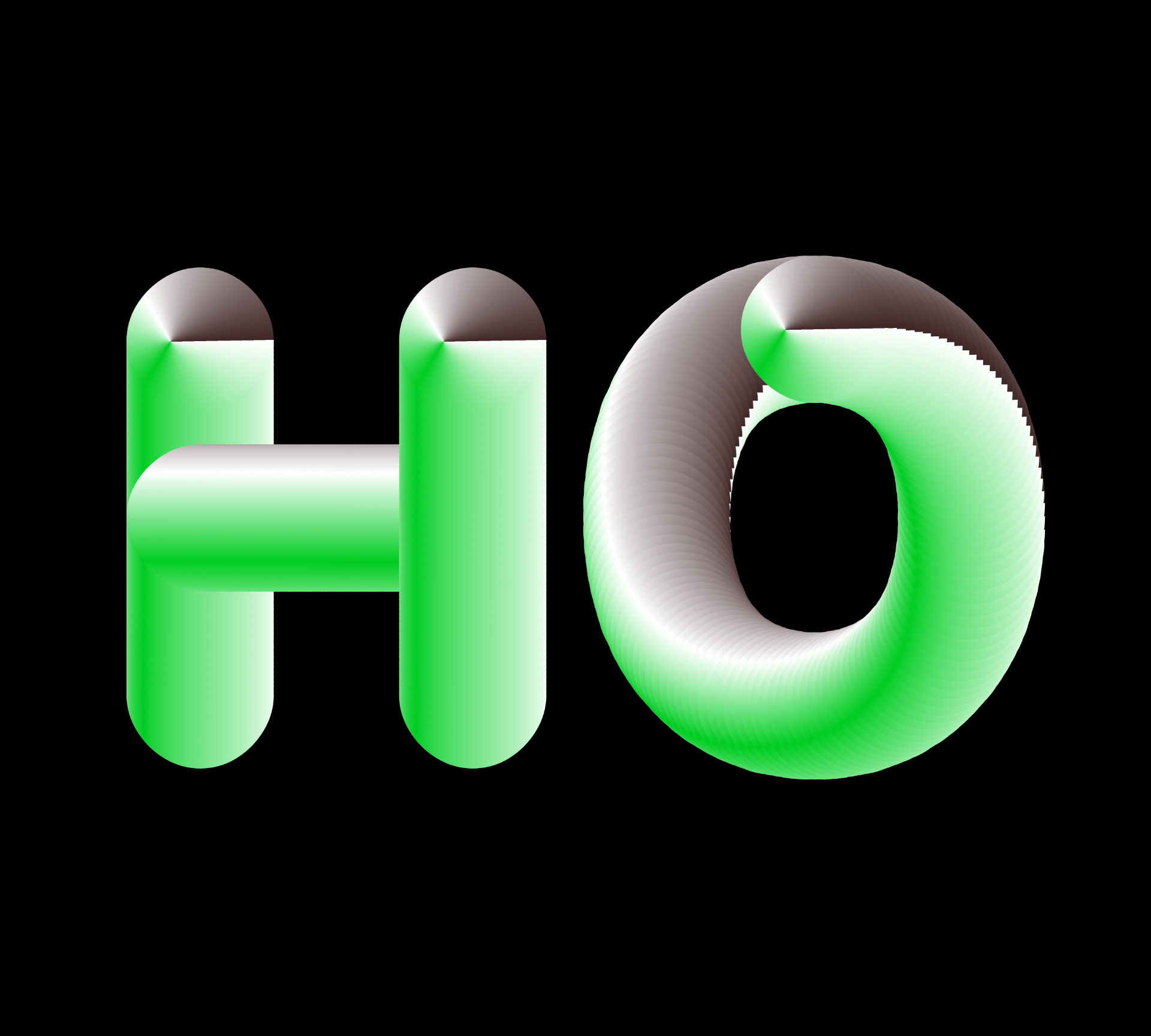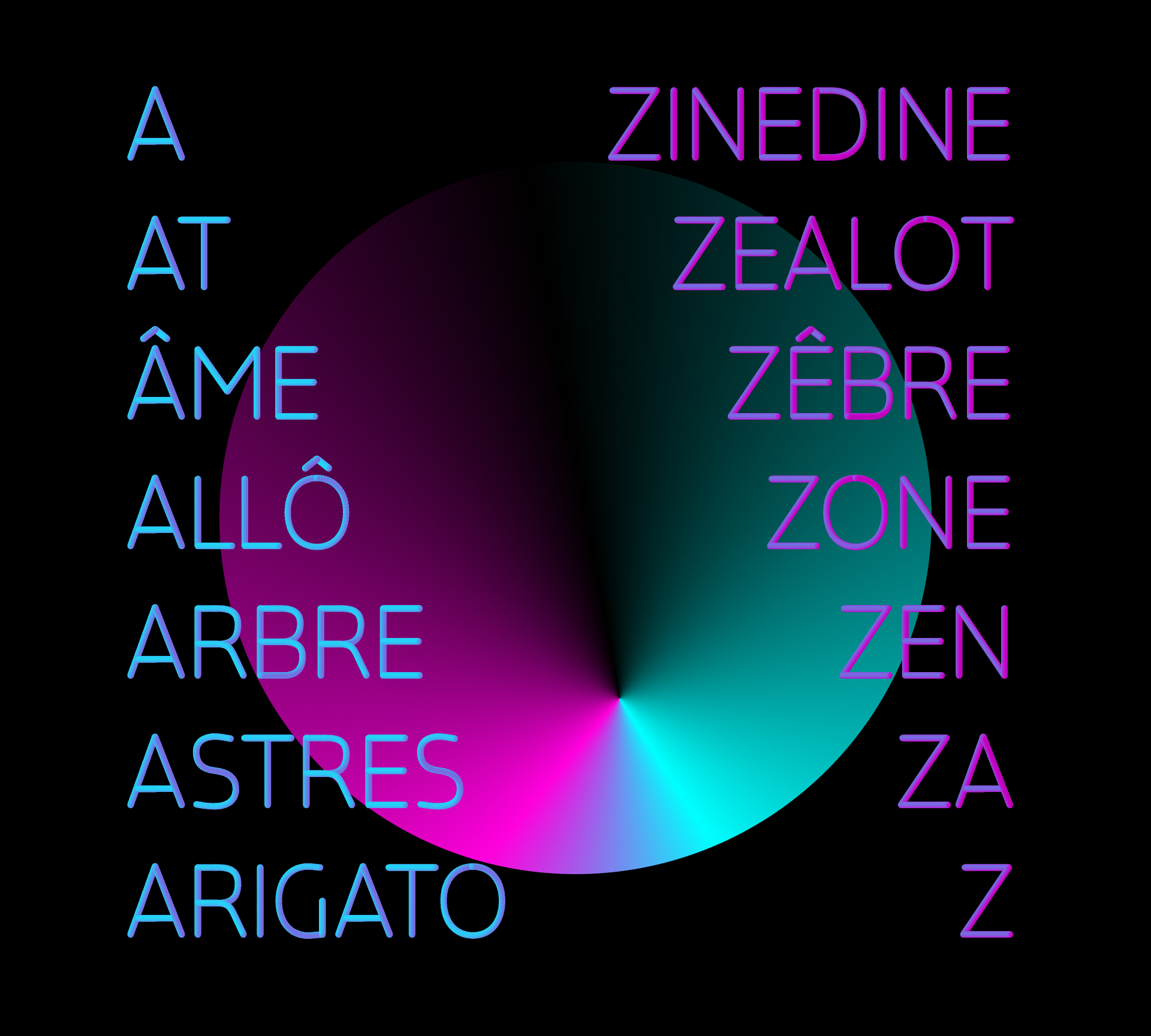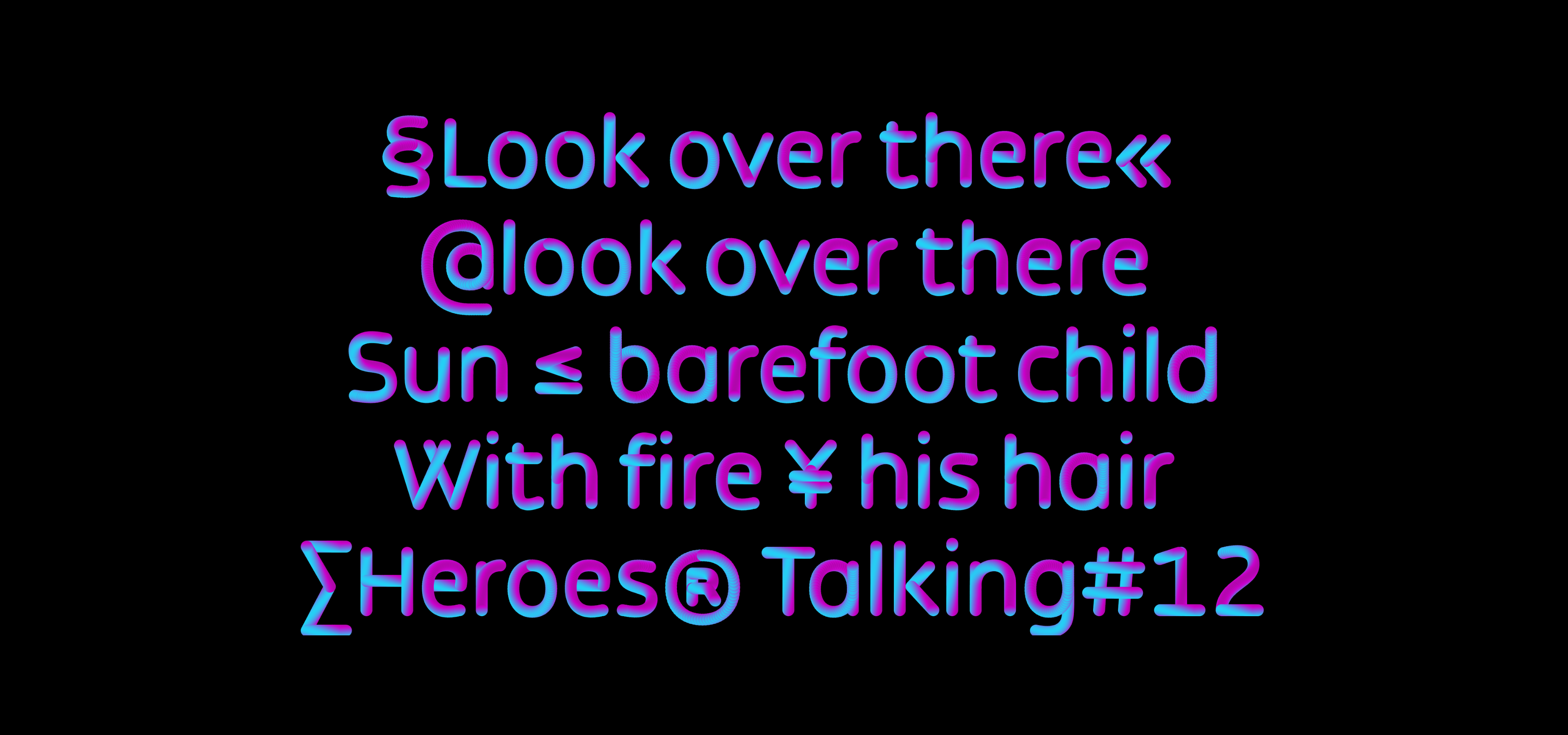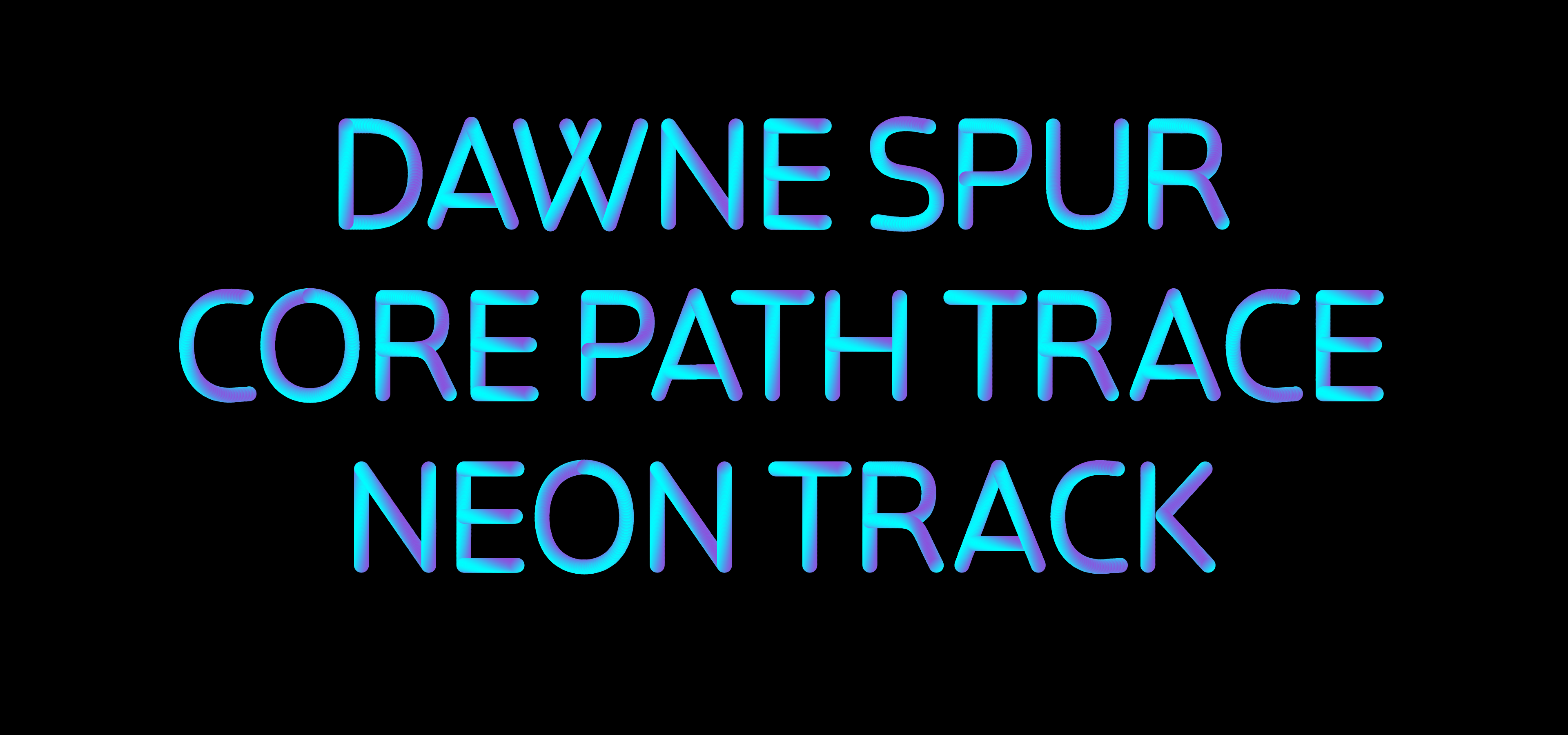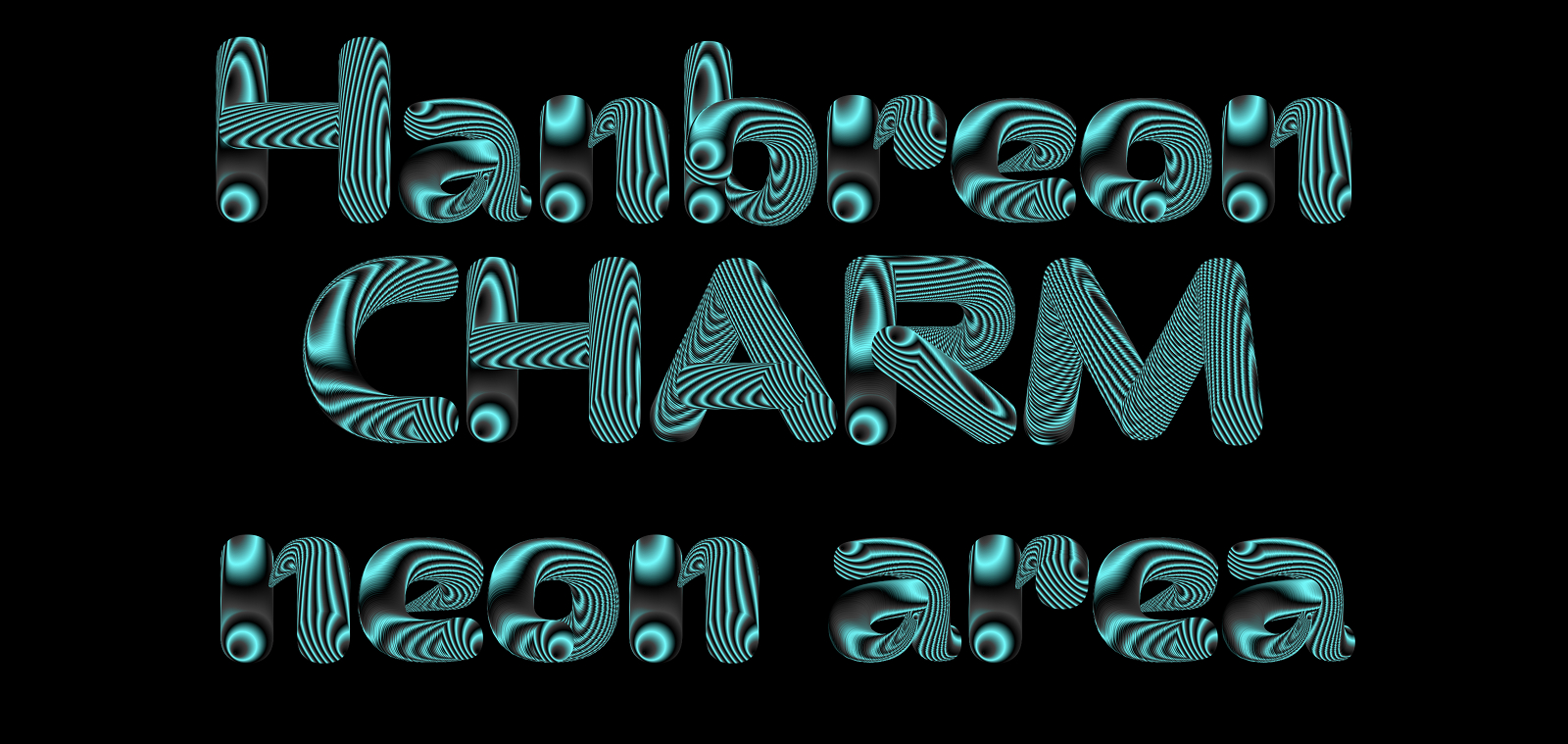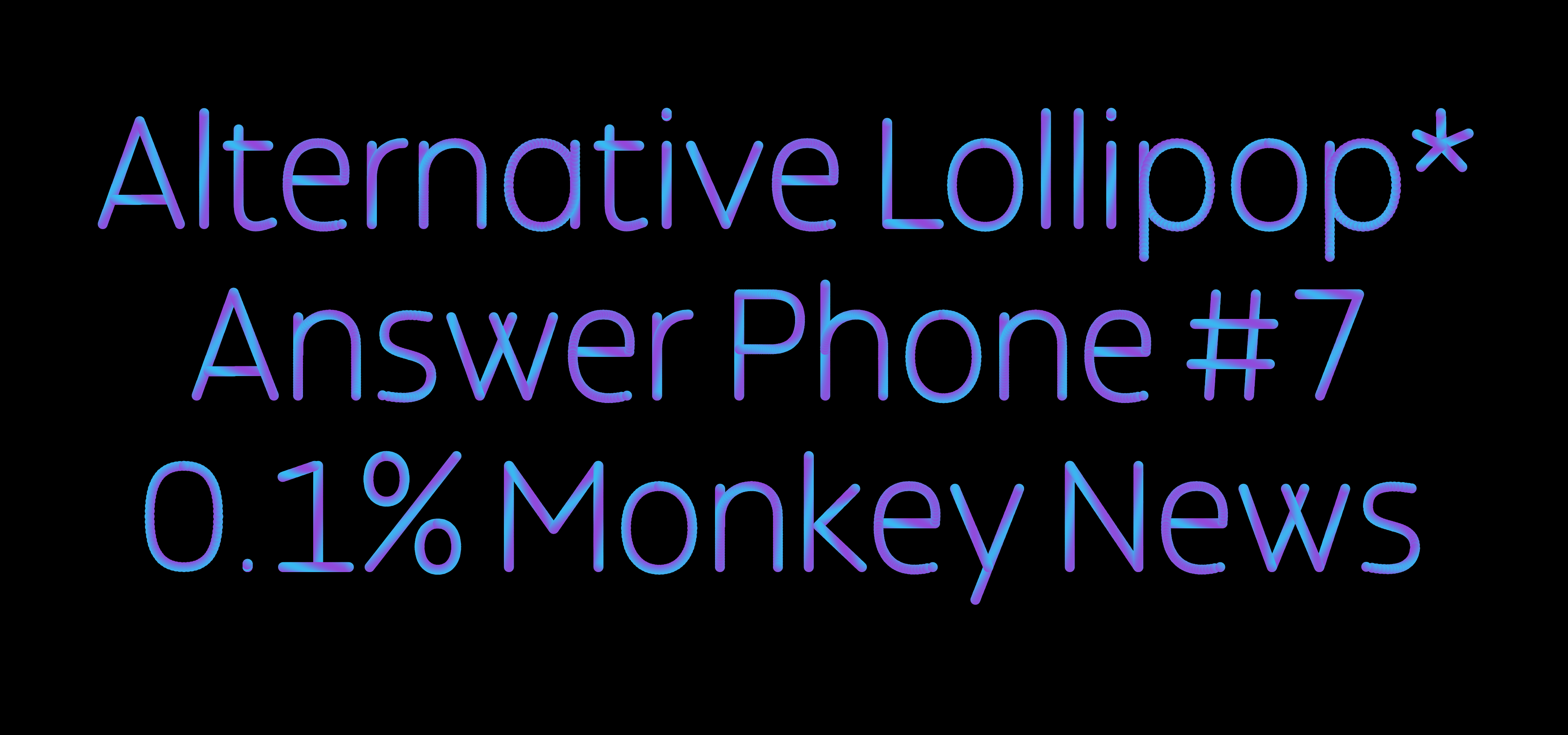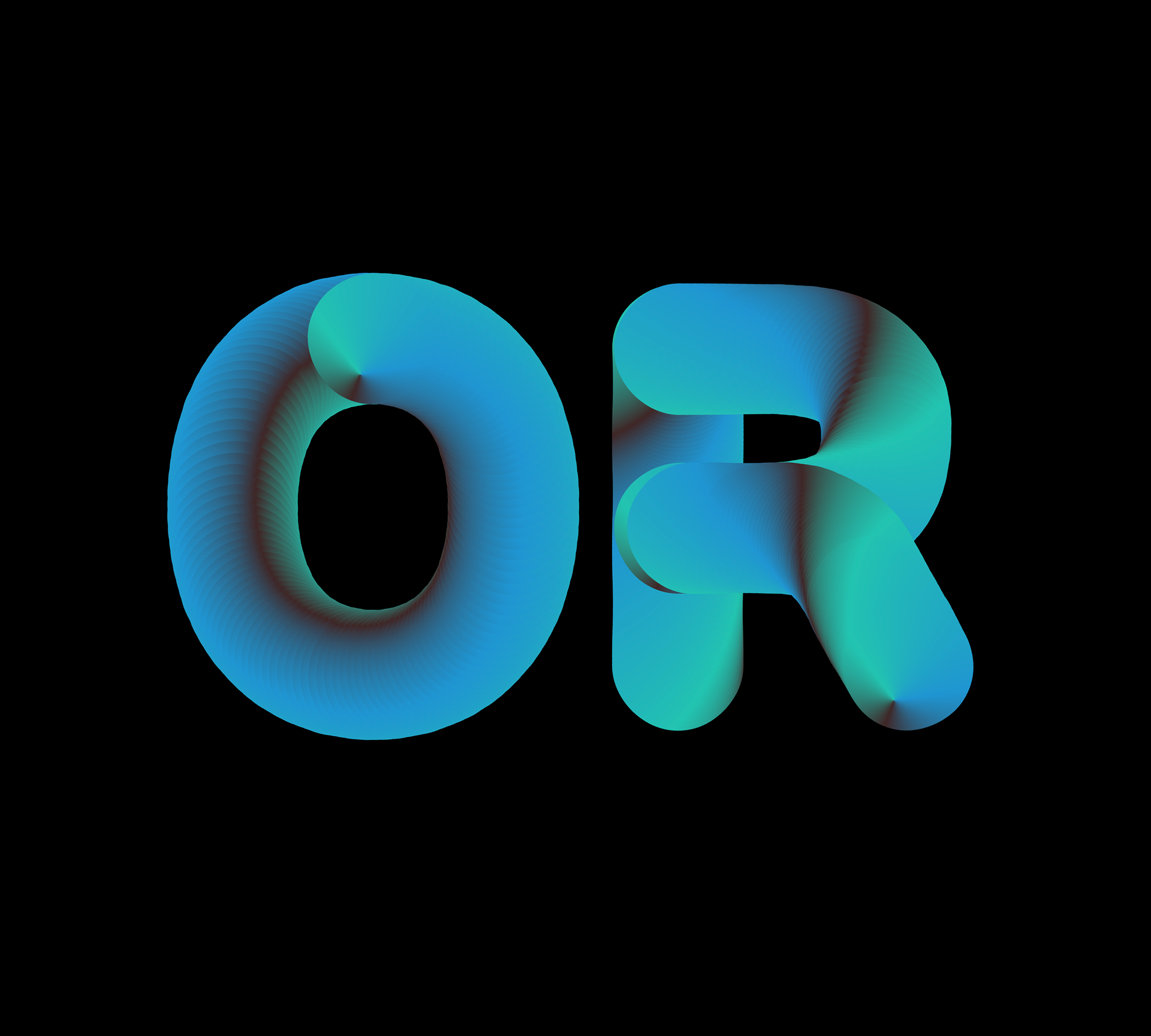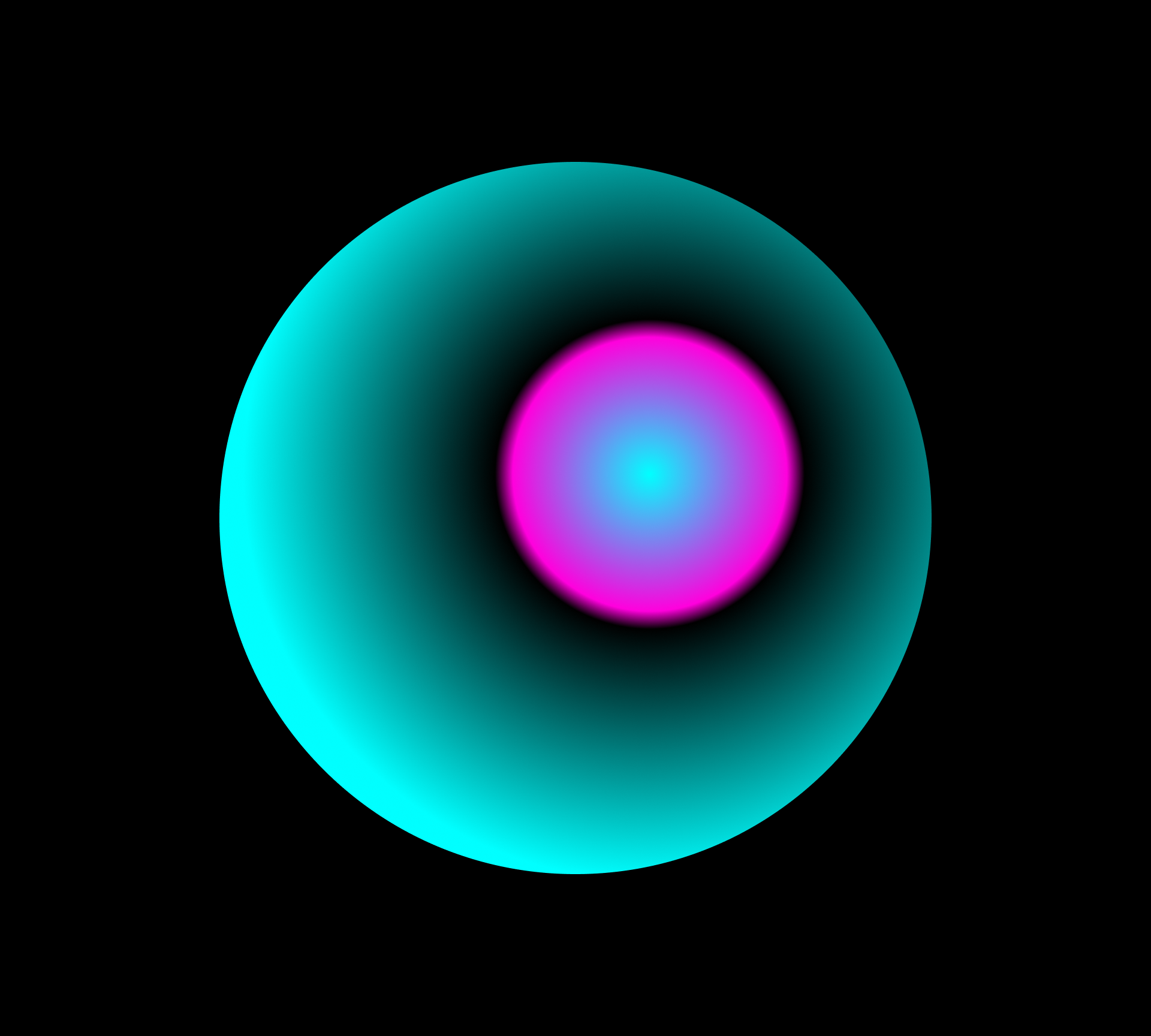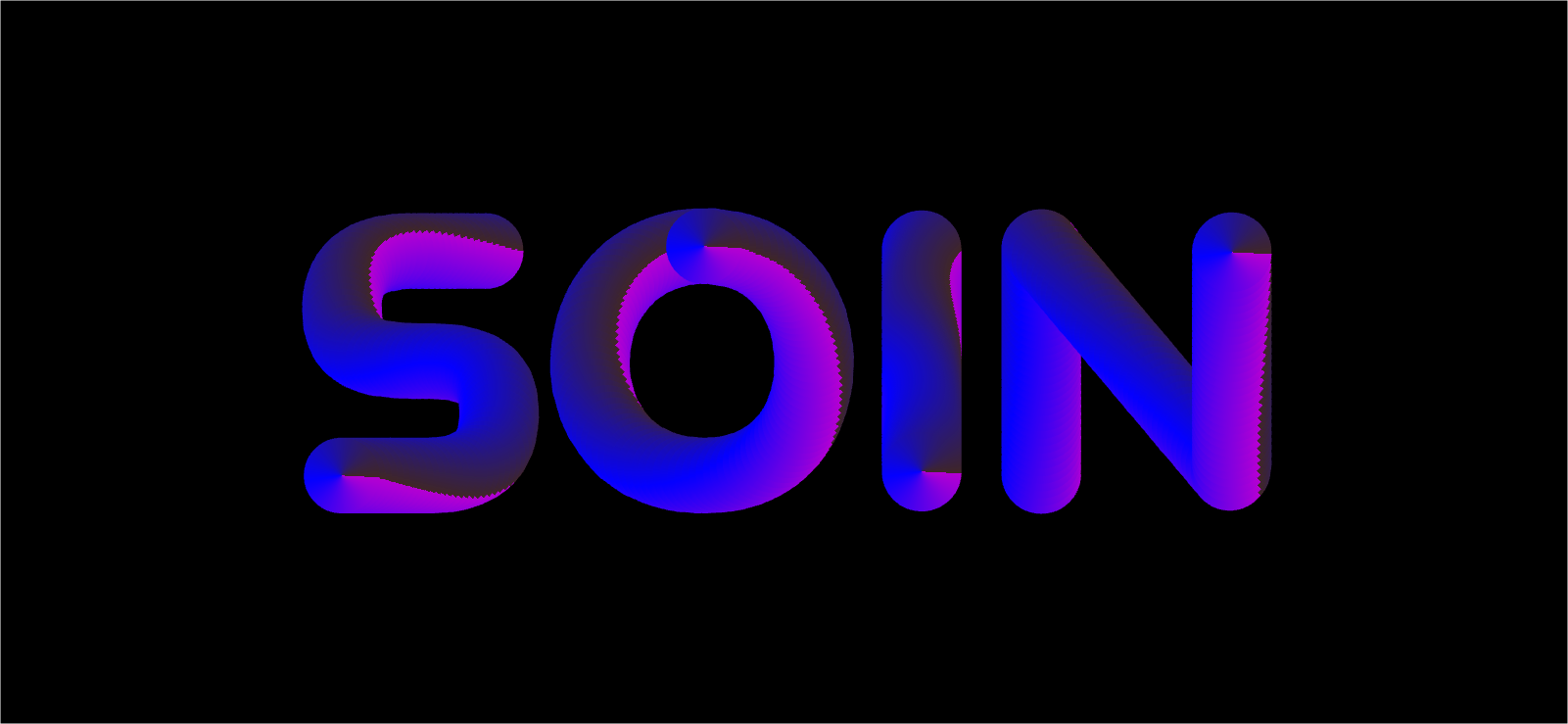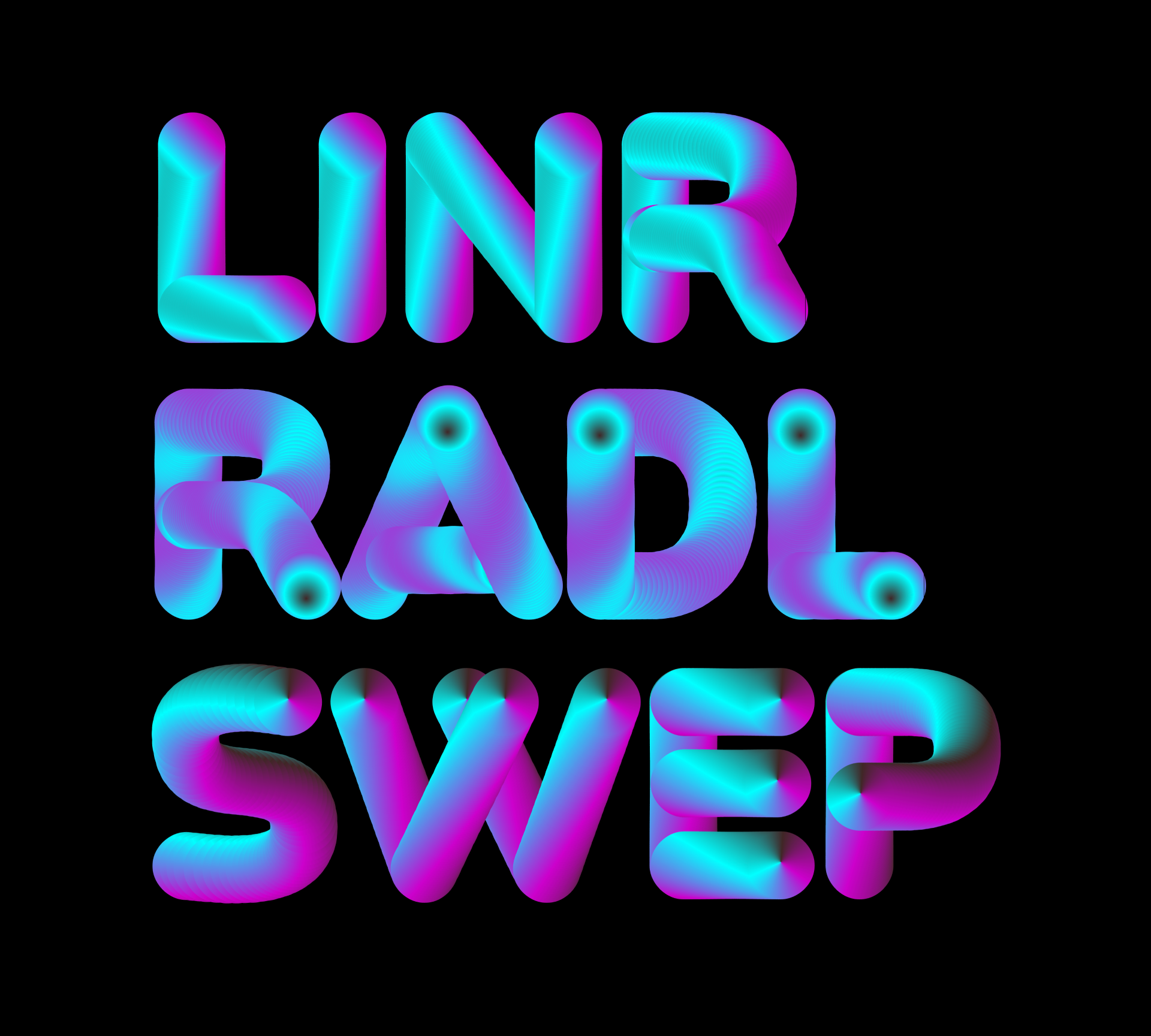
BM Neon is an experimental font system that pushes the boundaries of our aesthetic and technological expectations of digital fonts. Using a tailored production pipeline that combines parametric drawing, variable font technology and the Opentype COLRv1 table, this system provides users with a total of three variable COLR font files: LINR, RADL and SWEP. Each file is built using a specific type of gradient, which can be manipulated via different variable axes, allowing for a multitude of visual results in both still and moving settings.
| Styles | BM Neon LINR Var BM Neon RADL Var BM Neon SWEP Var |